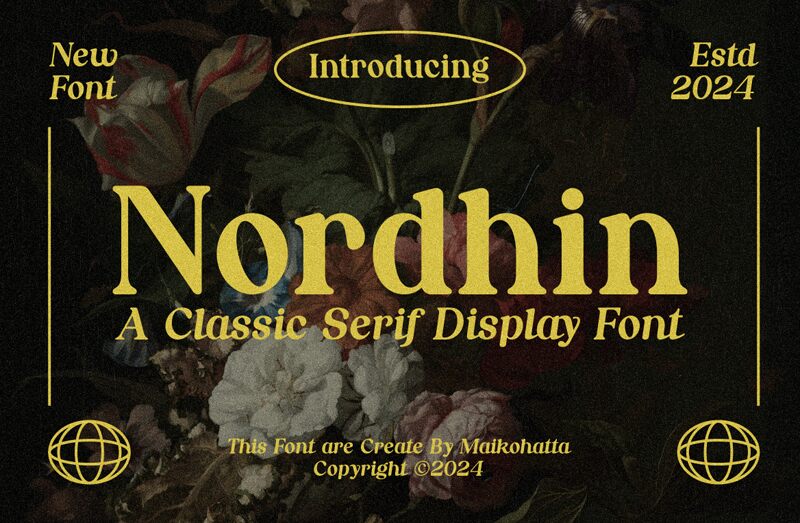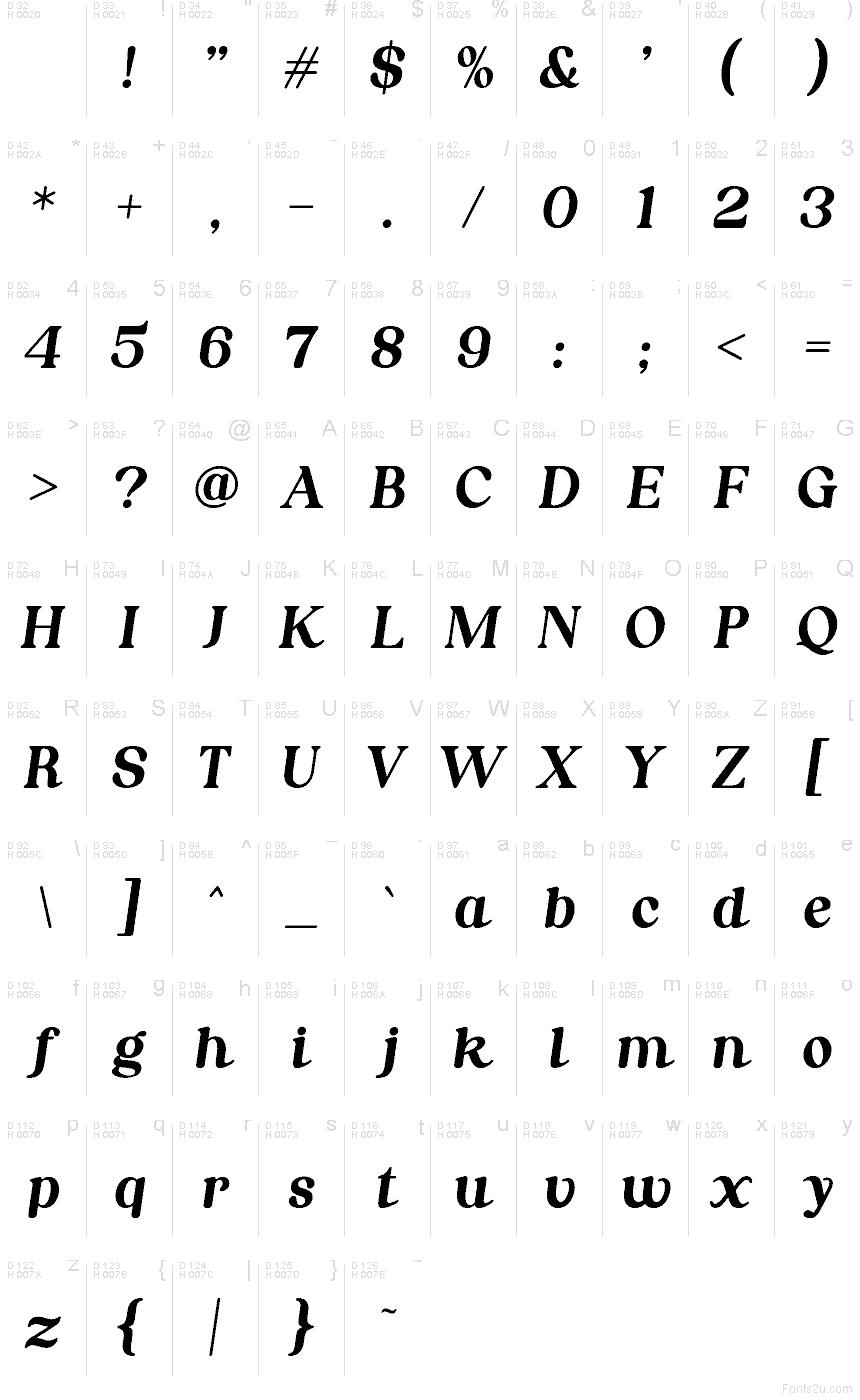
Nordhin Italic
Nordhin Italic font by Gilang Ternadho of Maikohatta is a free serif typeface with a bold, swept-over slant that feels like a brushstroke frozen mid-motion. The letters have dense, inky bodies and sharp, slightly rugged edges that give text a tactile, handmade presence. Its rhythm is energetic but controlled, so even a single word can carry a strong, dramatic voice without losing readability.
Using Nordhin Italic, headlines and wordmarks instantly gain a sense of crafted luxury and old-world charm. This free font shines on logos, book covers, editorial titles, boutique packaging, posters, and social media promos where you want drama without fuss. Pair it with a clean geometric sans at smaller sizes to keep layouts balanced, and let Nordhin Italic sing in larger, spacious settings where its sculpted curves can really breathe.